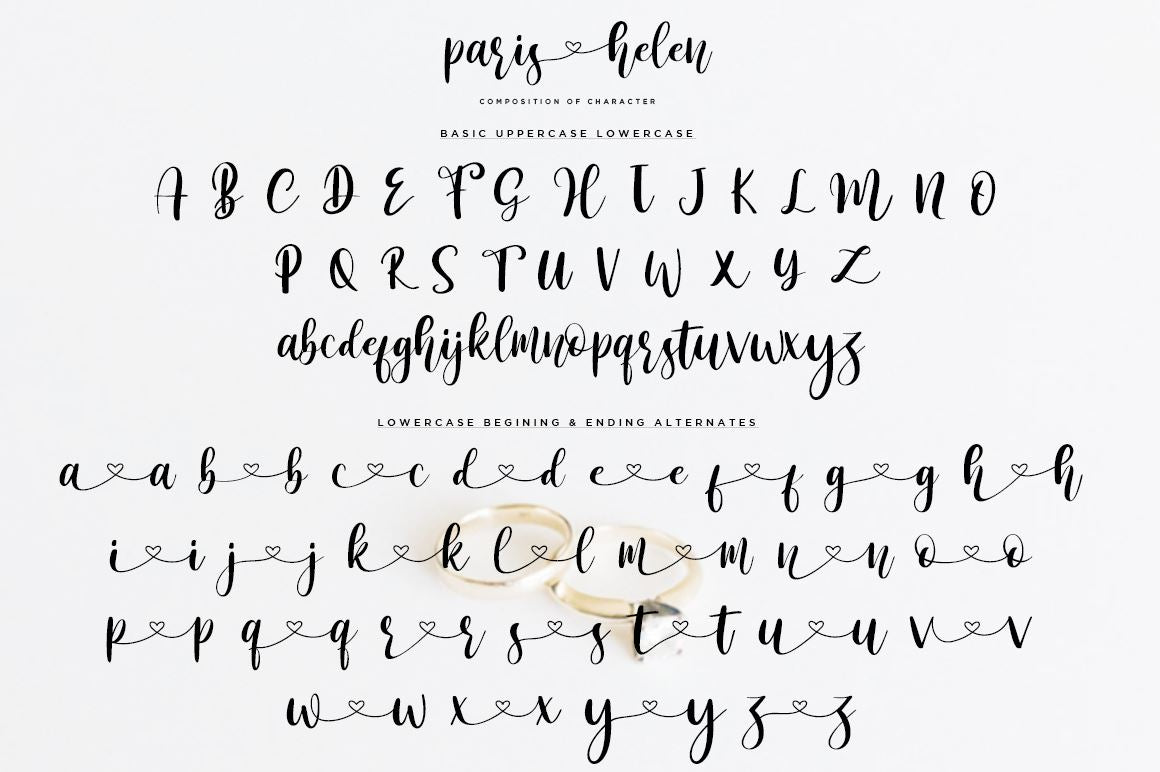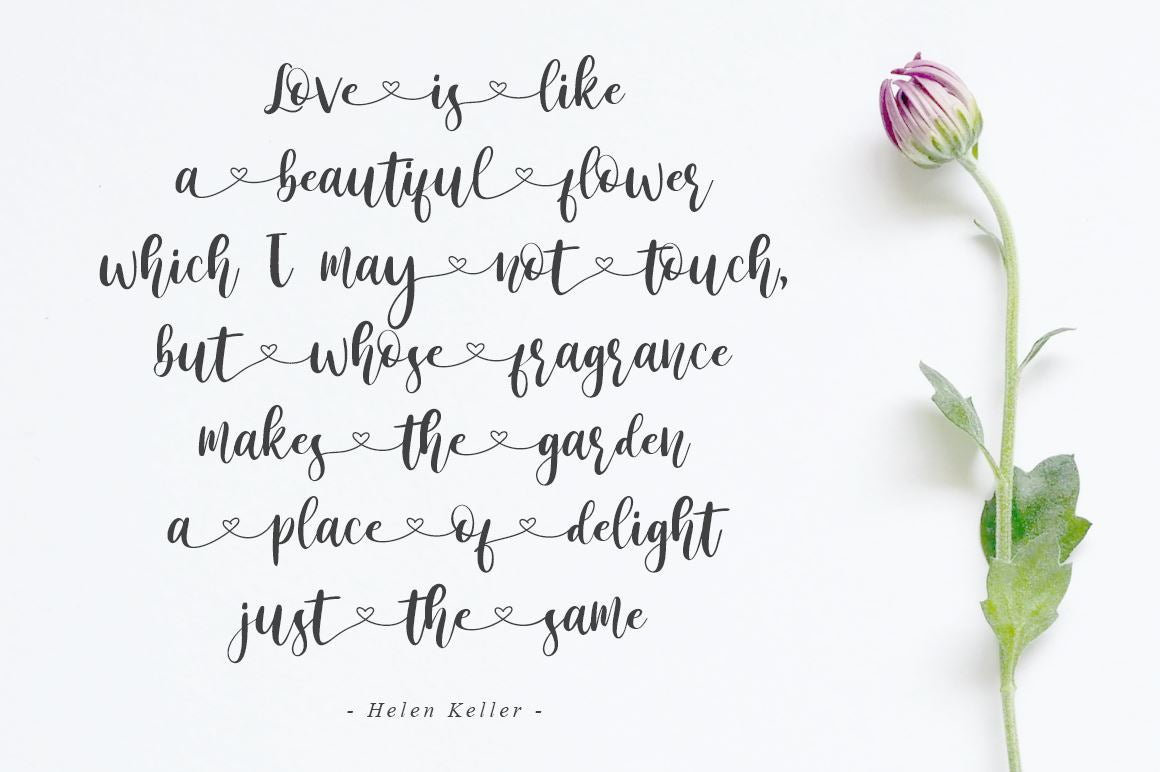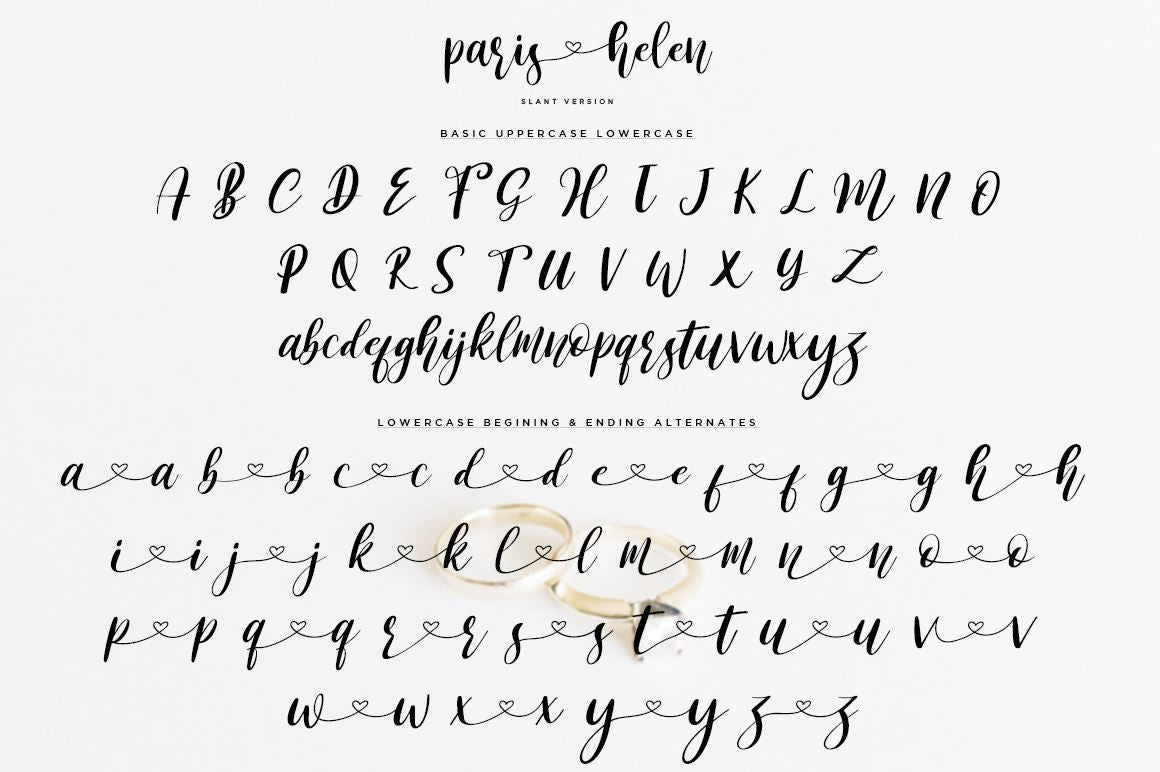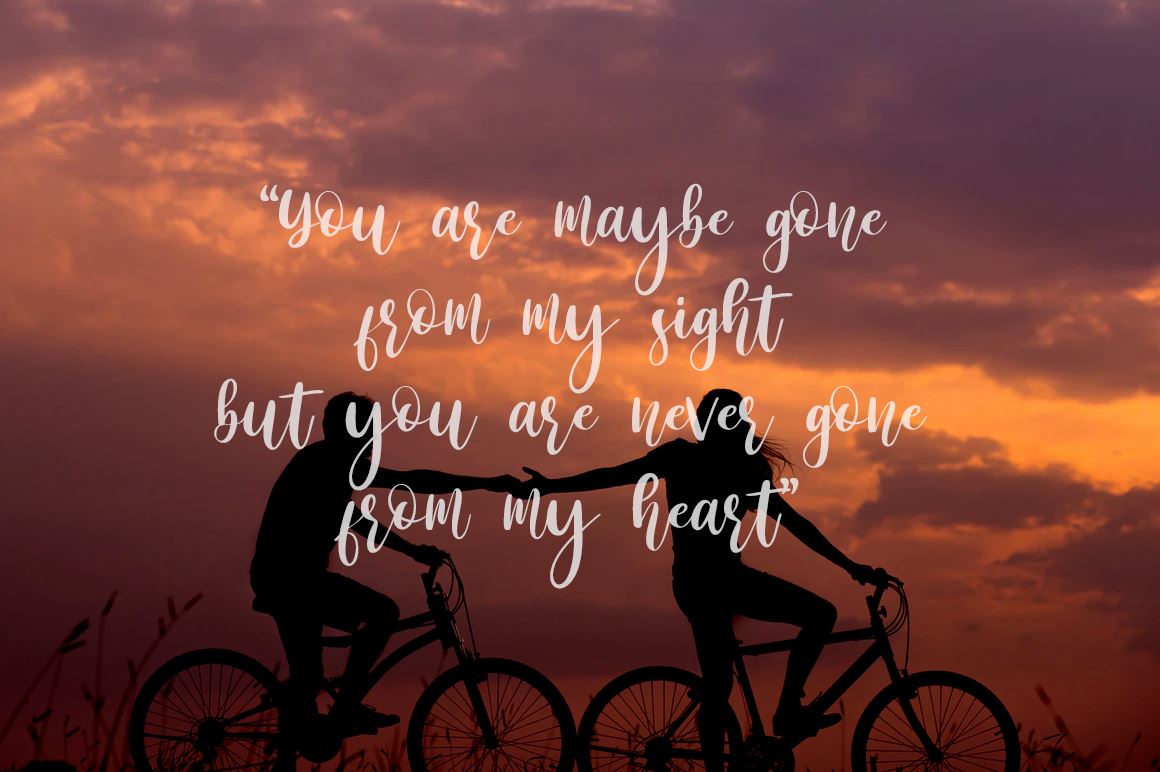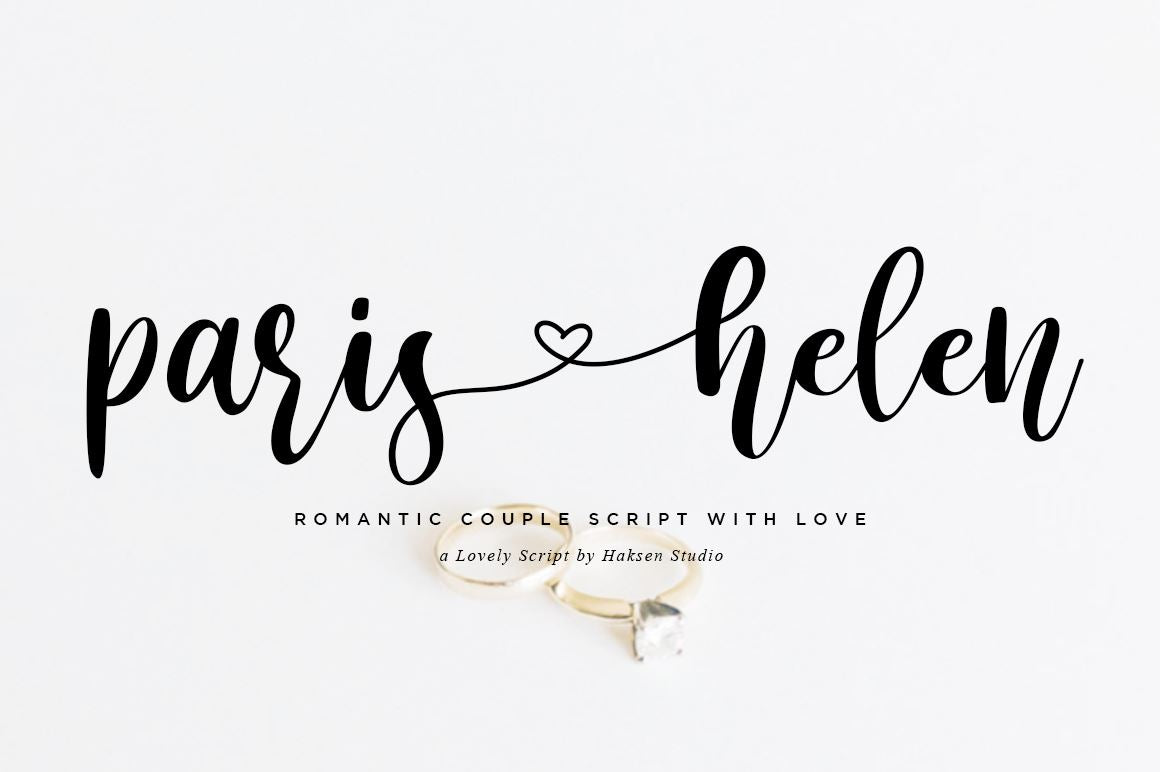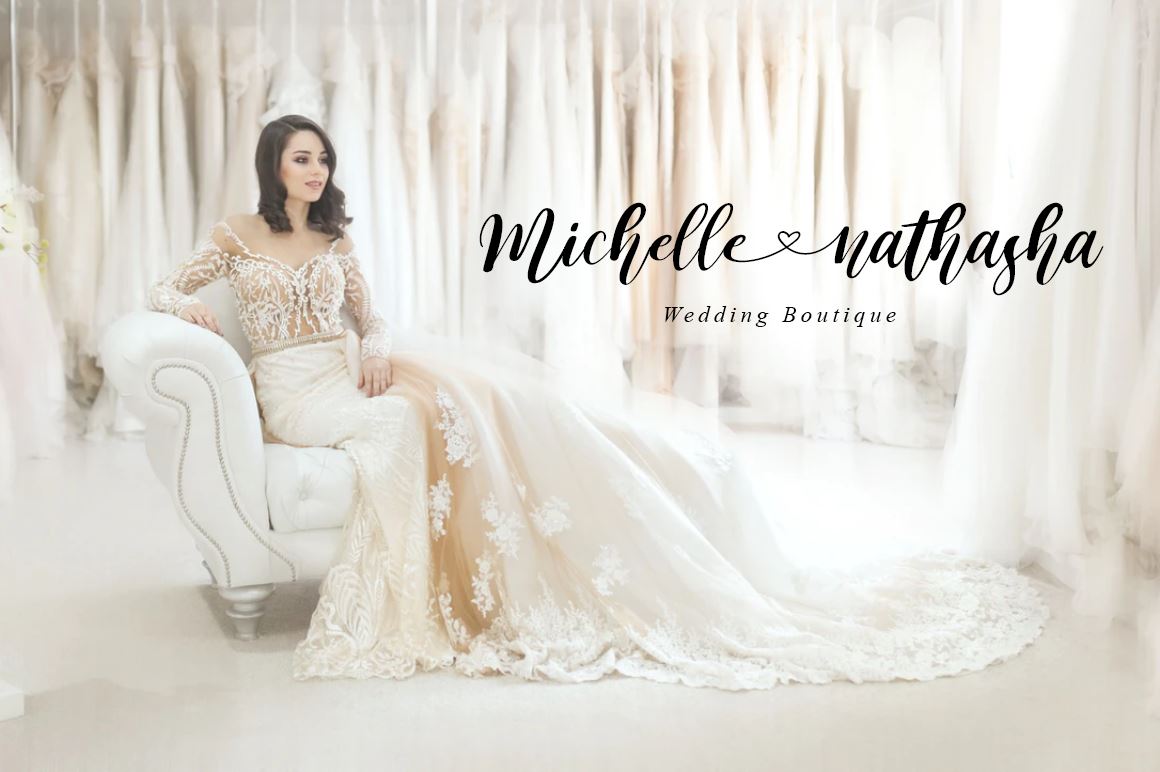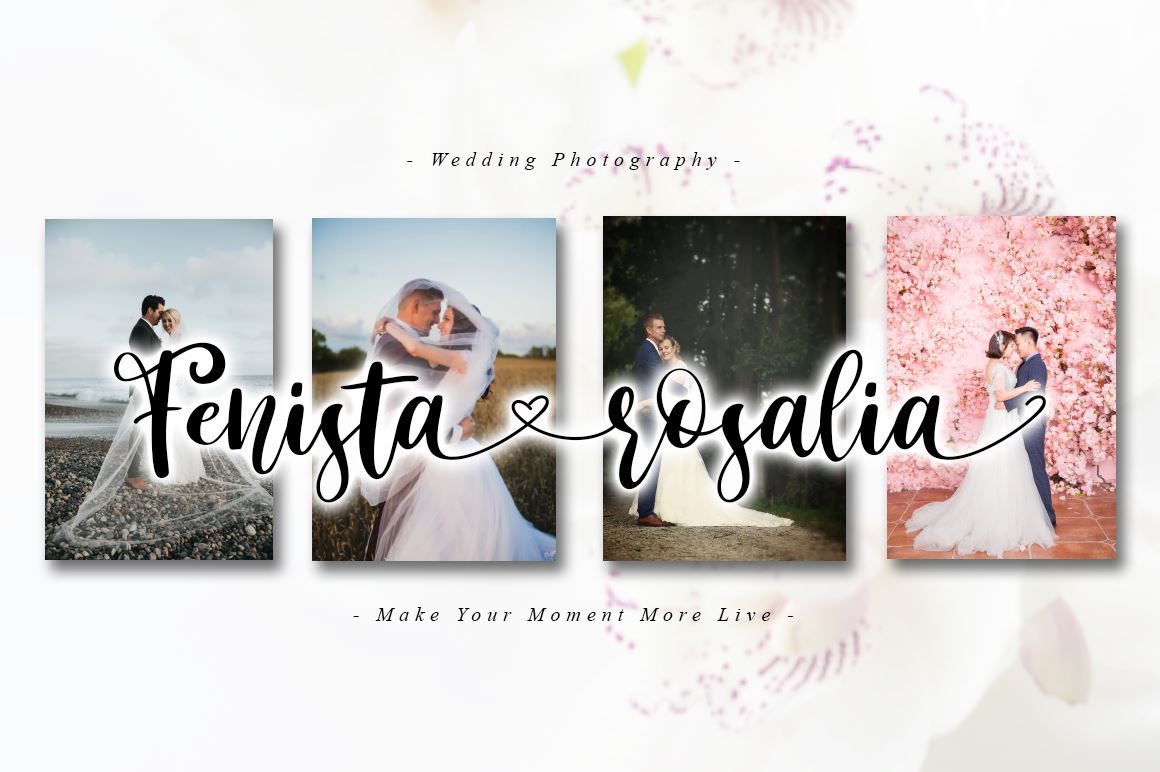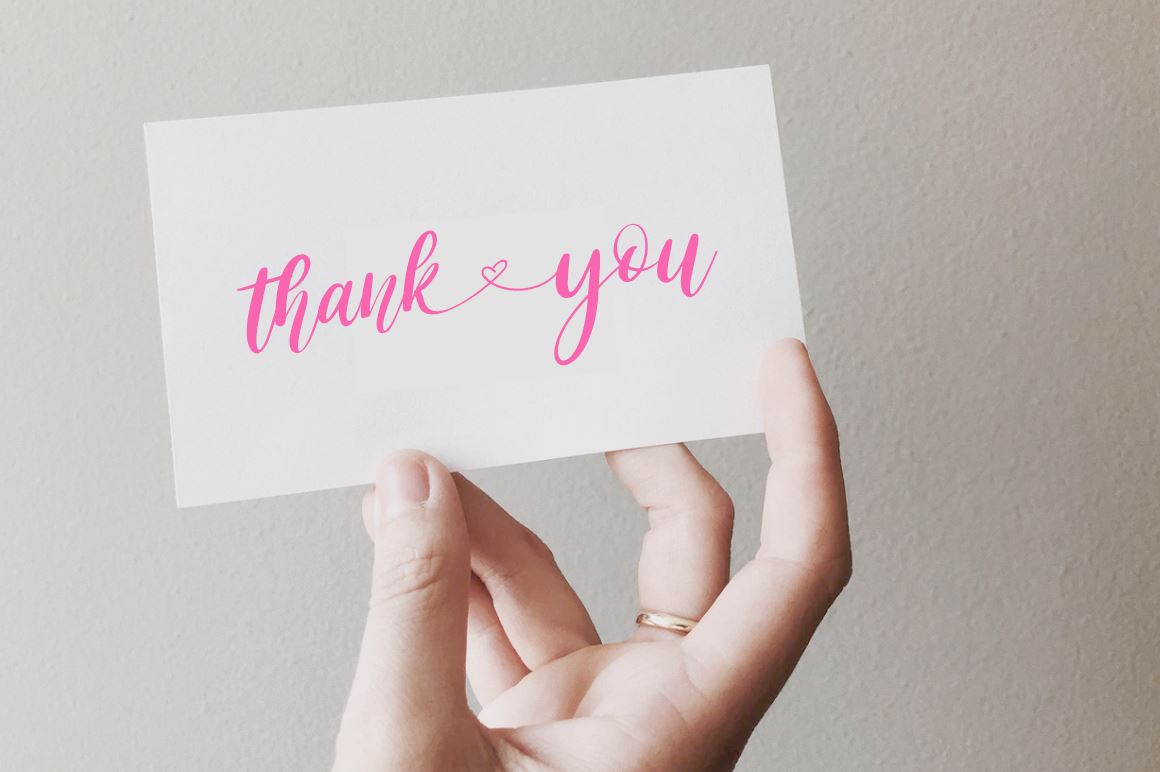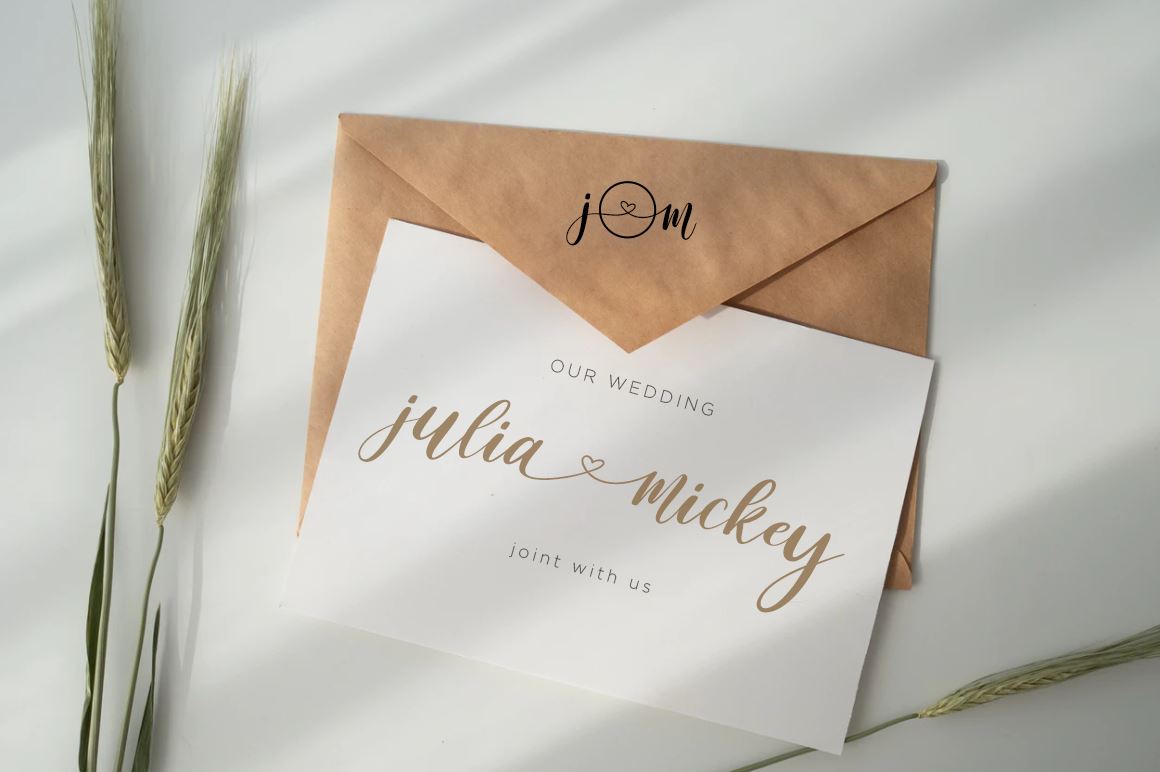
Paris Helen // Romantic Couple Love Script
Introducing the love script Paris Helen ! If you are needing a touch of casual chic calligraphy for your designs, this font was created for you! What’s Included: Paris Helen (TTF + OTF + WOFF) Paris Helen Slant (TTF + OTF + WOFF) Paris Helen was built with OpenType features and includes beginning and ending swashes alternate characters for both lowercase letters, when combine it would be love letters (without space), numbers, punctuation and these also supports other languages 🙂 Accessing the swashes / opentype features / glyphs: This font works best in a program that supports OpenType features such as Adobe Indesign, Adobe Illustrator CS, or Adobe Photoshop CC. You can access the swashes and alternates from the ‘Glyphs Panel’ in these programs. More Questions? Here are some (potential) answers! You are not permitted to resell this font in any way. Multilingual Support is included for Western European Languages Also, the sans-serif font used in the preview images is Gotham 🙂 Cheers!